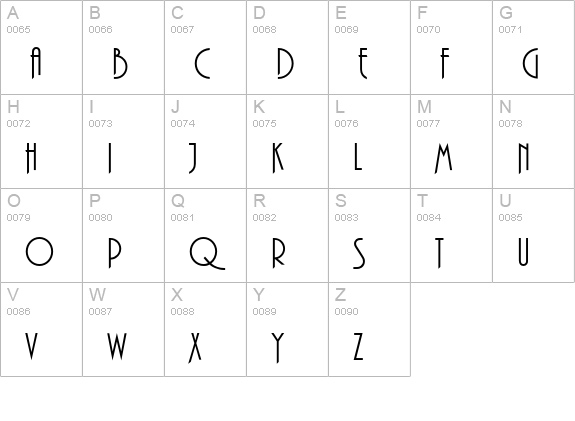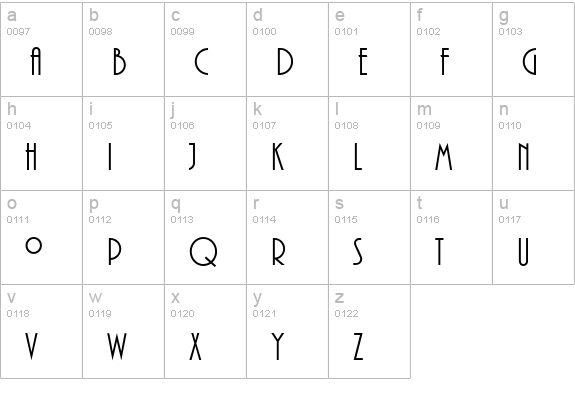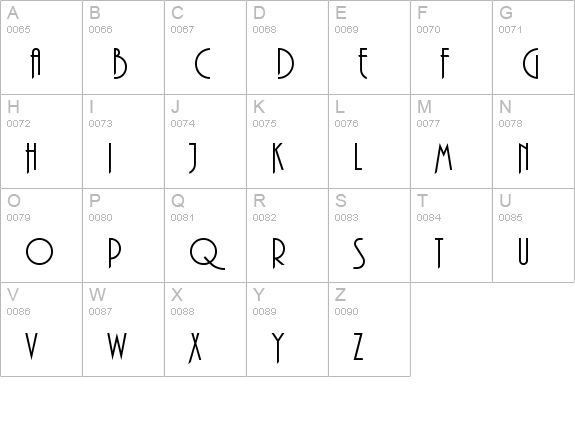
PlazaEF-Alternate Font Details
PlazaEF-Alternate font is a versatile and modern typeface that exudes elegance and sophistication. With its unique alternate characters and stylish design, PlazaEF-Alternate is perfect for a wide range of creative projects, from branding to editorial design. This font is free to download at FontsMarket.com, making it easily accessible for designers and creatives looking to add a touch of flair to their work. Elevate your designs with PlazaEF-Alternate and make a lasting impression with its distinctive and eye-catching aesthetic.